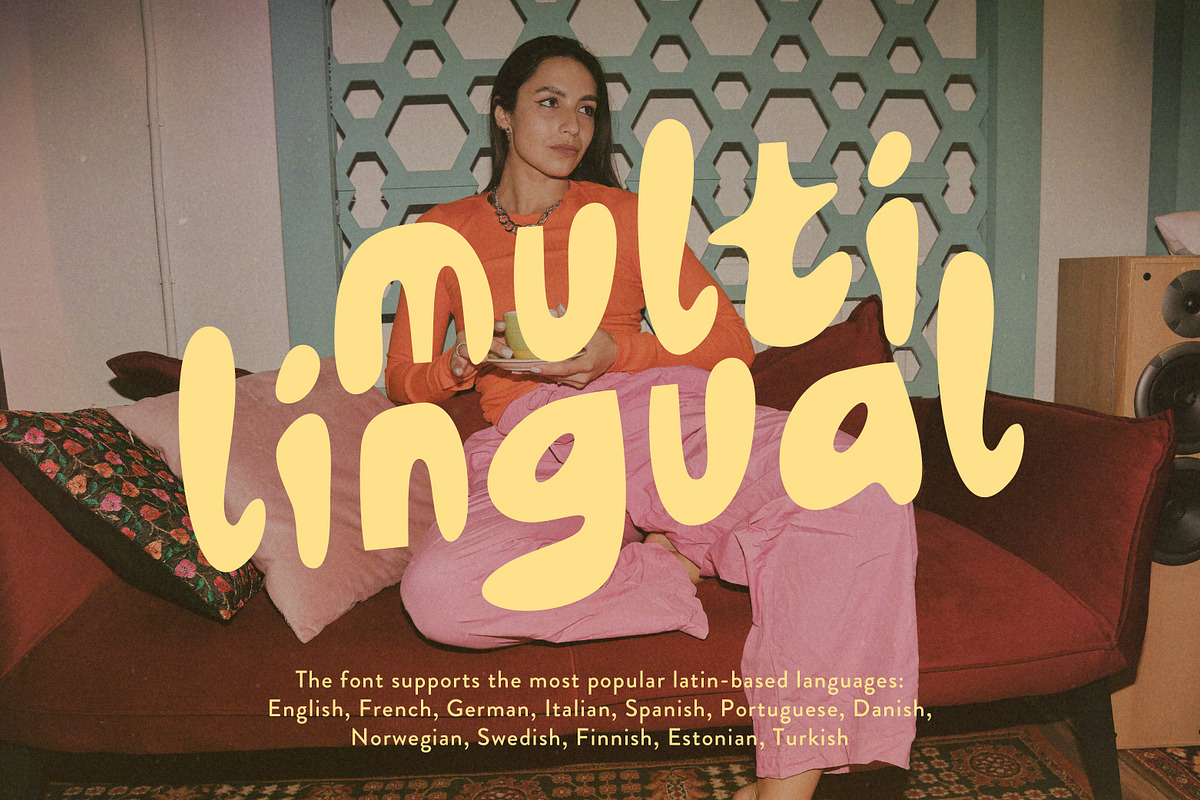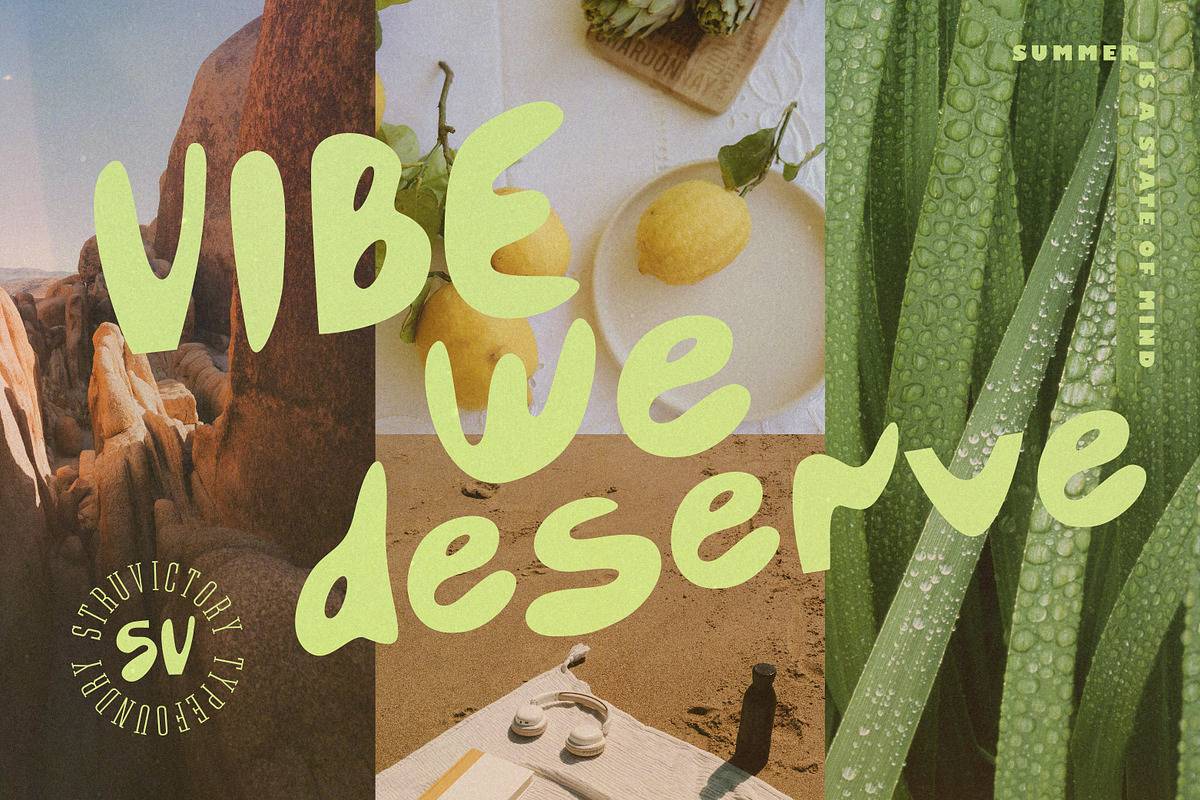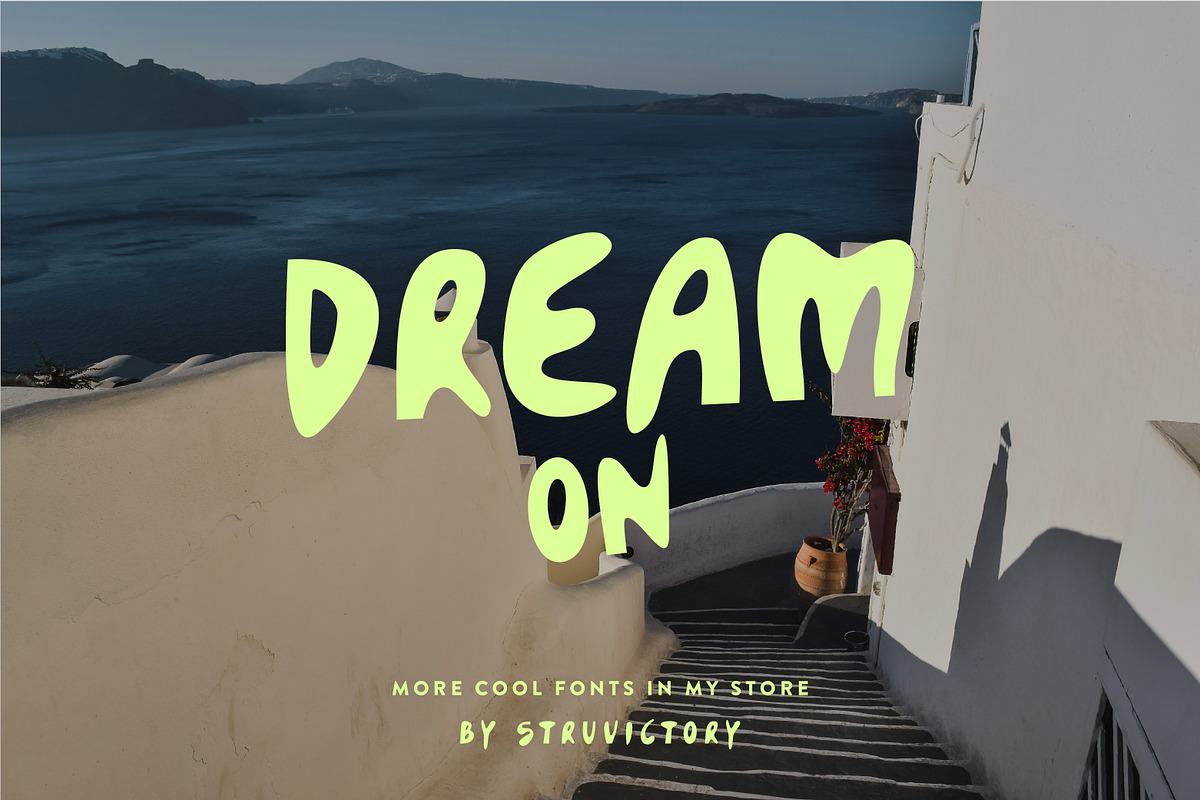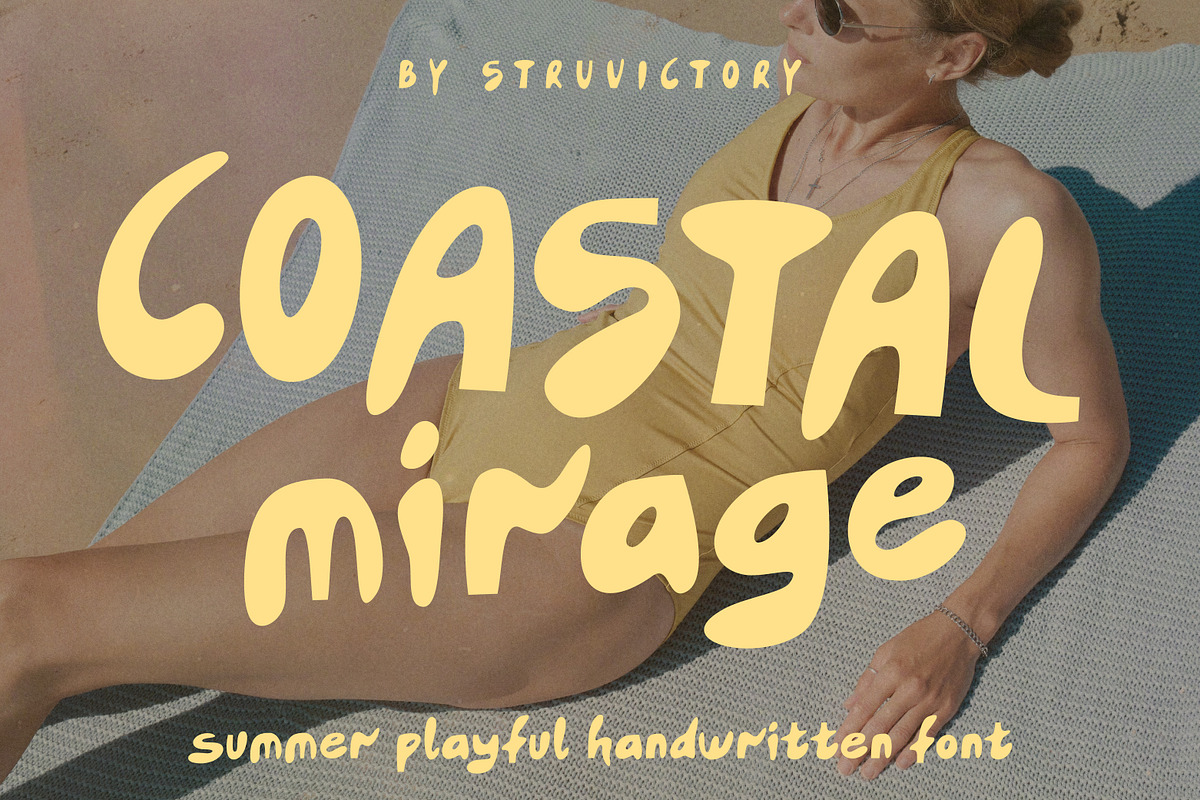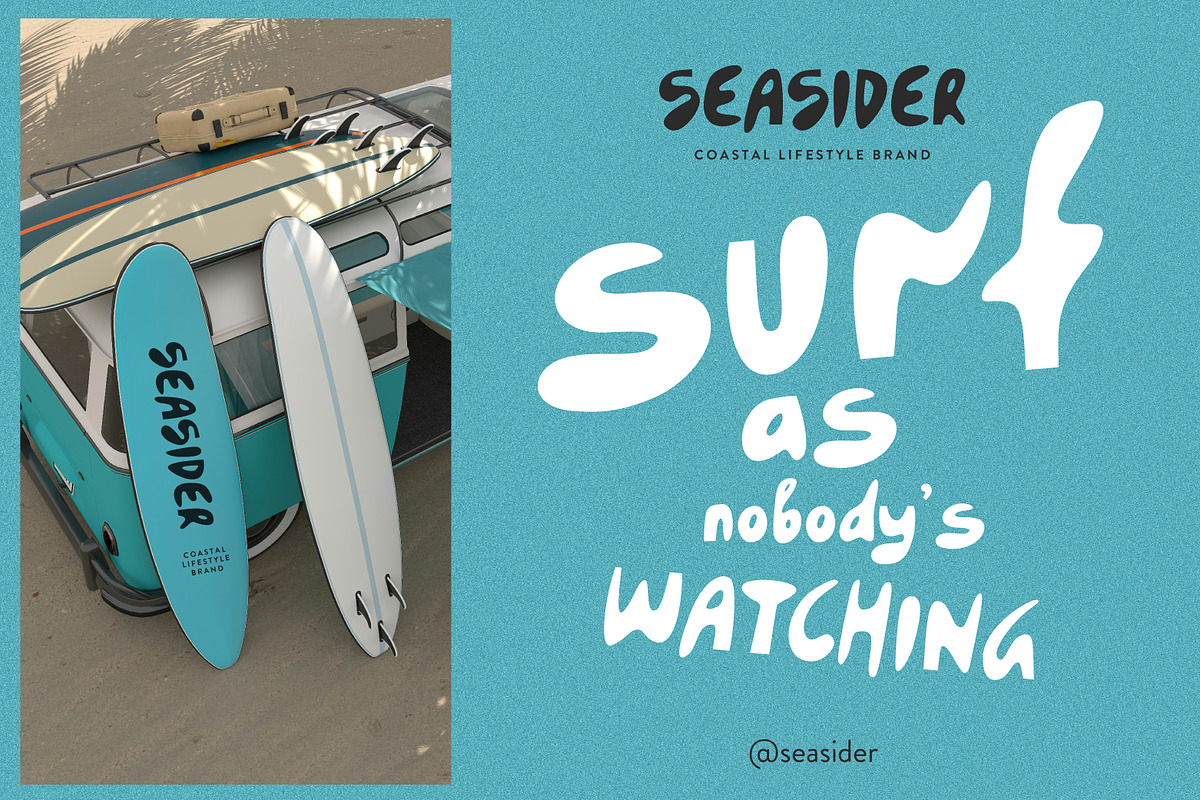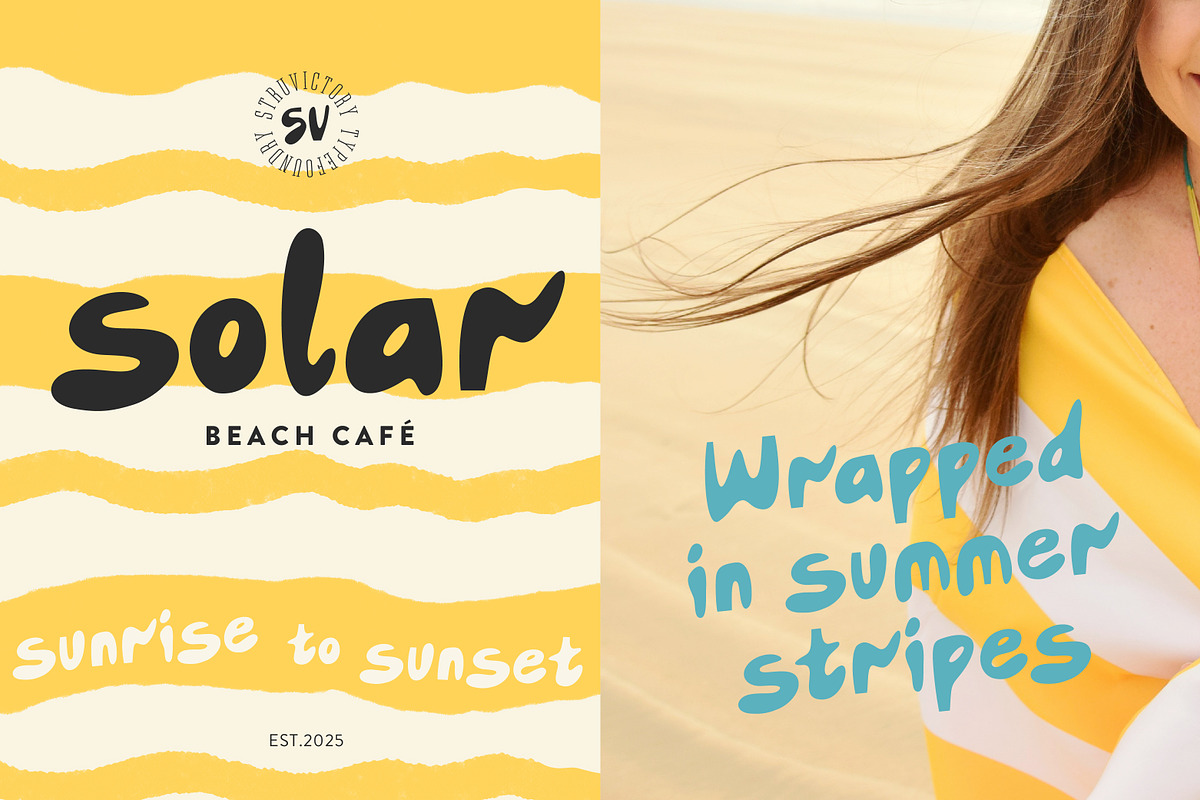
Coastal Mirage Playful Summer Sans
Coastal Mirage is a carefree handwritten sans serif with a soft, sun-faded feel. Loose, rounded, and naturally stylish, it captures the spirit of endless beach days and slow summer afternoons. Ideal for branding, packaging, merch, and anything that needs a touch of warmth and ease — this font brings relaxed charm with a modern twist.
Coastal Mirage supports the most popular latin-based languages, you can check the symbol you need by typing a couple of words in the font preview box.